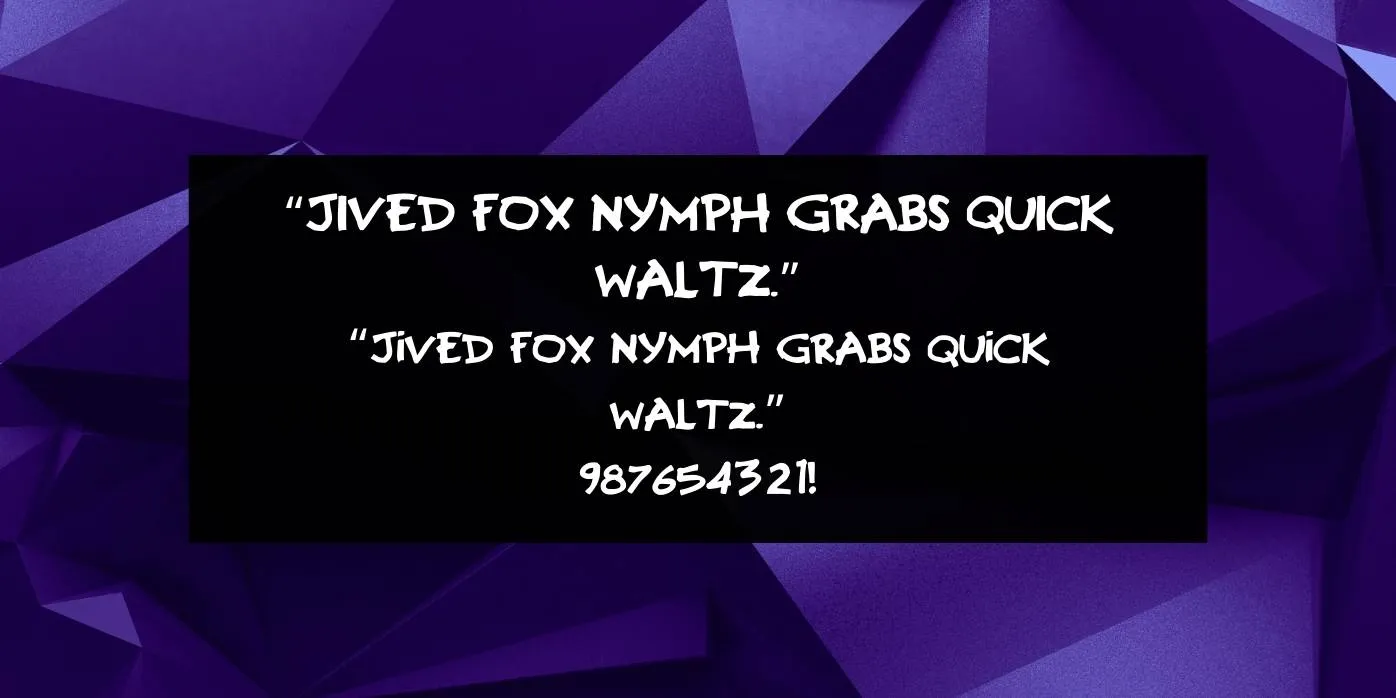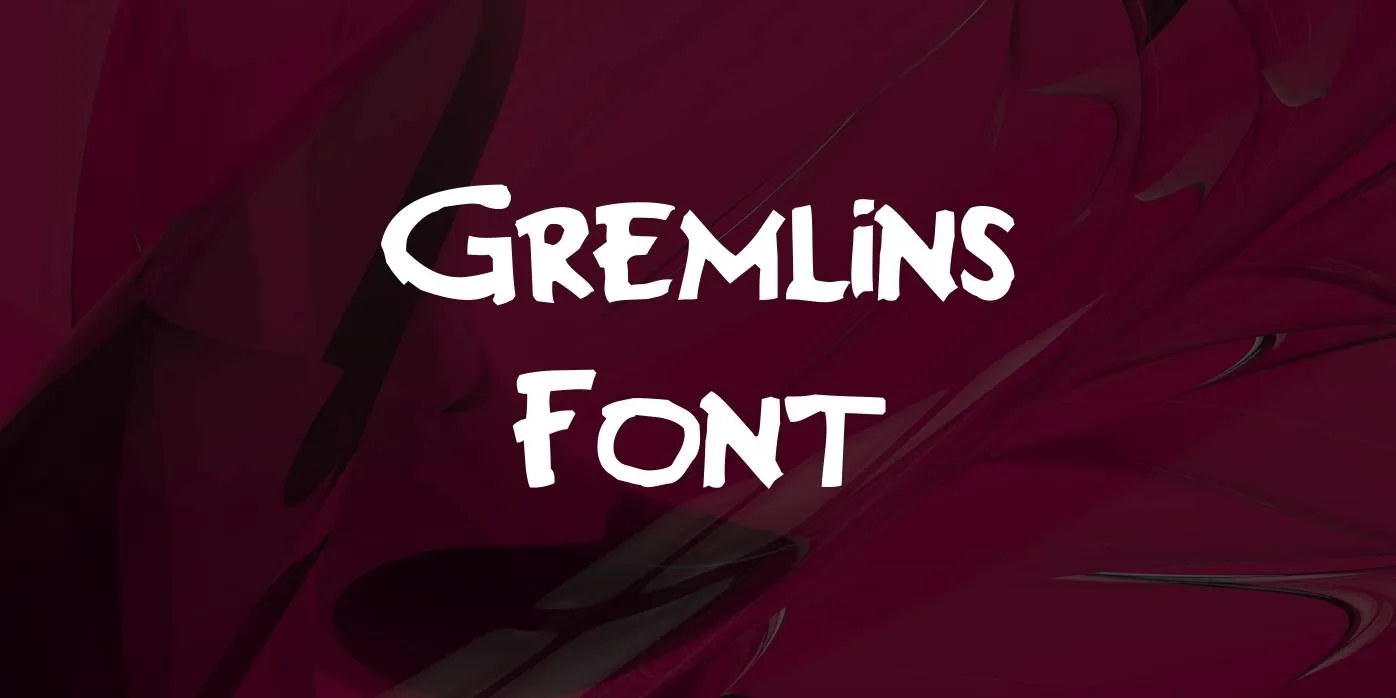
Gremlins Font
Gremlins Font is a famous typeface known as The Flea Pit Foundry. This typeface belongs to the fancy fonts family. The Flea Pit Foundry is one of the first digital typefaces. This font was created in 1992 by David Berlow and Roger Black.
This font has a unique design that makes it perfect for headlines and other decorative purposes. The font includes two different styles: regular and italic. The regular style is perfect for body text, while the italic style is ideal for headers and titles. It is used for different types of programs like Adobe and Canva.
For more classic features, you will have to use its alternative porkays font which has the same features. The generator tool of this typeface is very classic. The Gremlins Font is perfect for any web page or document.